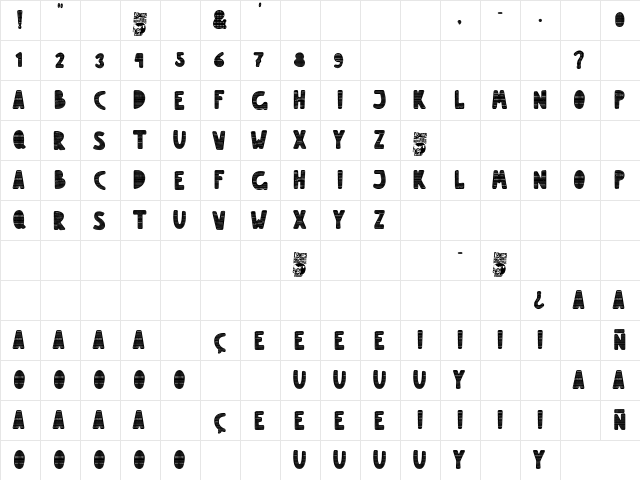
El Tito Adolfo Regular
Design Context for El Tito Adolfo Typeface
El Tito Adolfo is a composed and adaptable typeface that performs quietly and consistently across a wide range of design contexts.